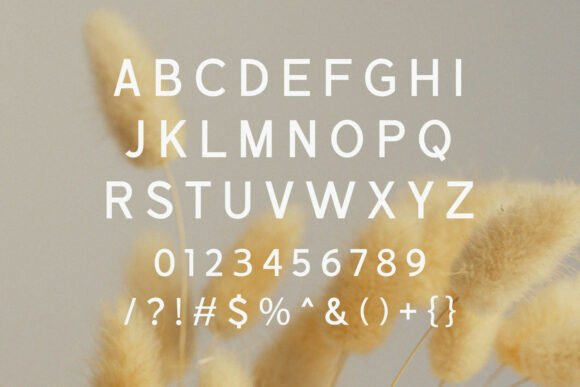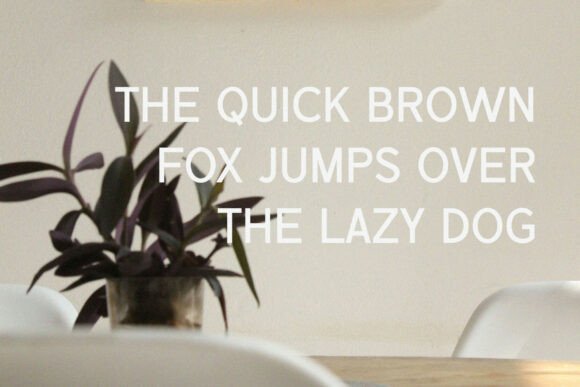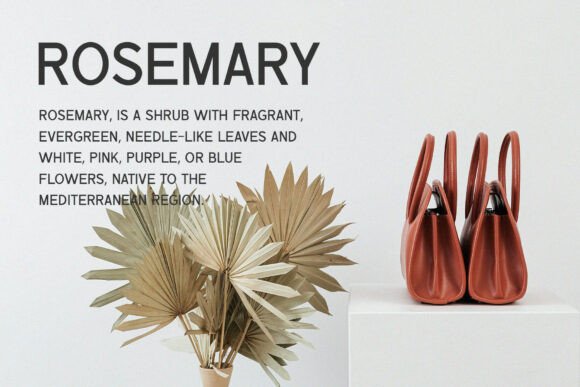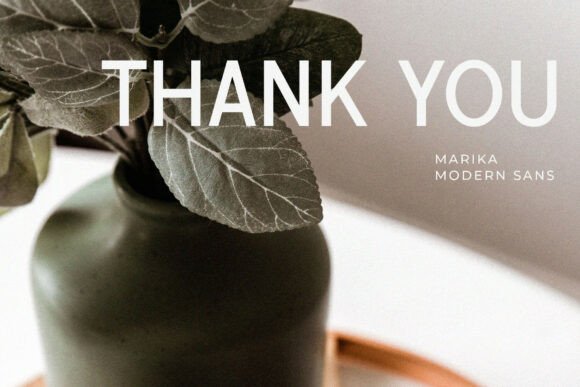
Introduction to Marika Font
Marika is a unique and elegant sans serif font.
It looks beautiful on a variety of designs requiring a personalized style, such as wedding invitations, thank you cards, weddings, greeting cards, logos and so on .